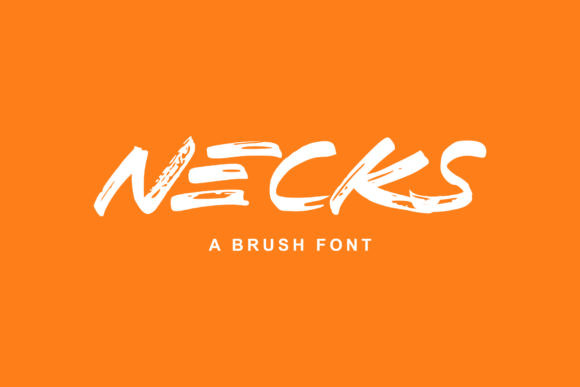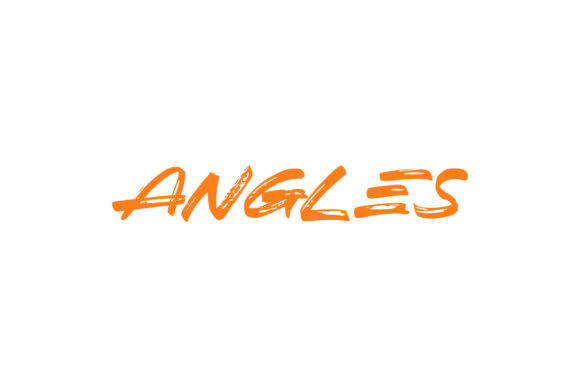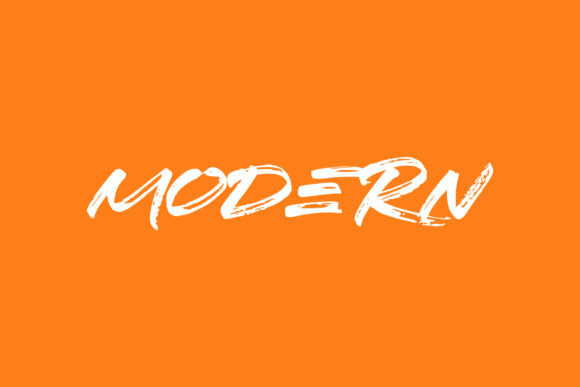
Necks Font
Necks is an incredibly unique display font, created with the help of a brush pen. Add this font to your creative ideas and notice how it will make them stand out!